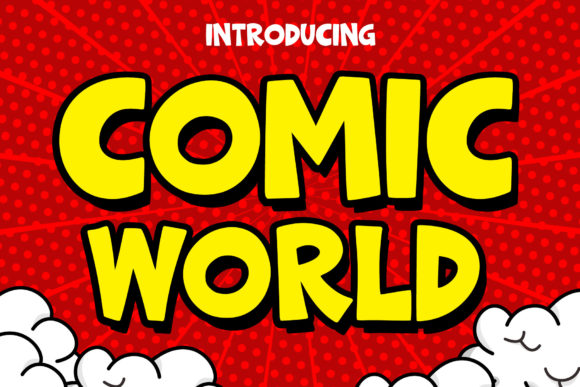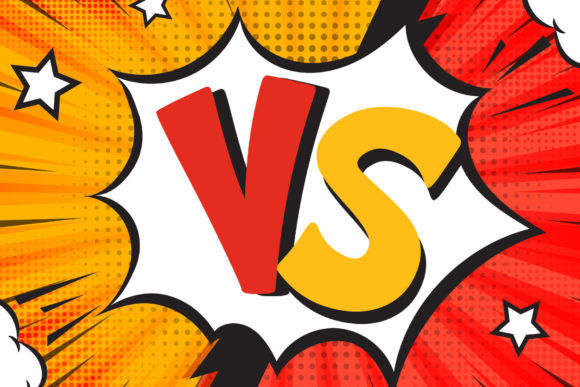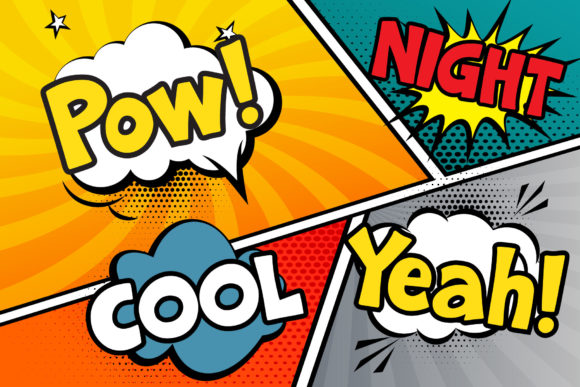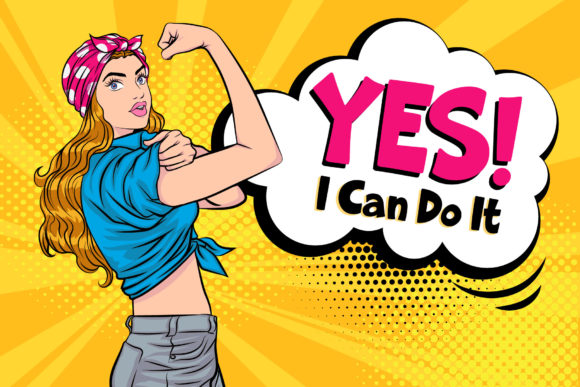
Comic World Font
About the Comic World Font
From logos to headlines, the Comic World Font is the perfect choice for making a lasting impression. Comic World is a cool, vintage styled display font. It is the perfect font for titles or words needing a more dramatic emphasis. Whatever the topic, this font will be a wonderful asset to your font library, as it has the potential to enhance any creation.
Comic World’s bold, vintage style thrives in headlines, posters, and branding projects requiring a retro or playful feel. It excels in short, impactful statements but is less suitable for body text or UI elements where readability over long stretches is crucial. Avoid using it for lengthy paragraphs or small sizes.
Its strong personality pairs well with clean sans-serif fonts like Helvetica or Open Sans for a balanced contrast, creating a modern yet nostalgic feel. For a more playful pairing, consider a rounded geometric sans-serif. A classic serif like Garamond can add sophistication, grounding the Comic World’s energy.
Comic World’s core personality is energetic and nostalgic. It’s ideal for projects aiming for a vintage, playful, or slightly rebellious aesthetic—think comic books, retro gaming brands, or products targeting a younger demographic.
Comic World Font Usage Examples
Comic World Font Example